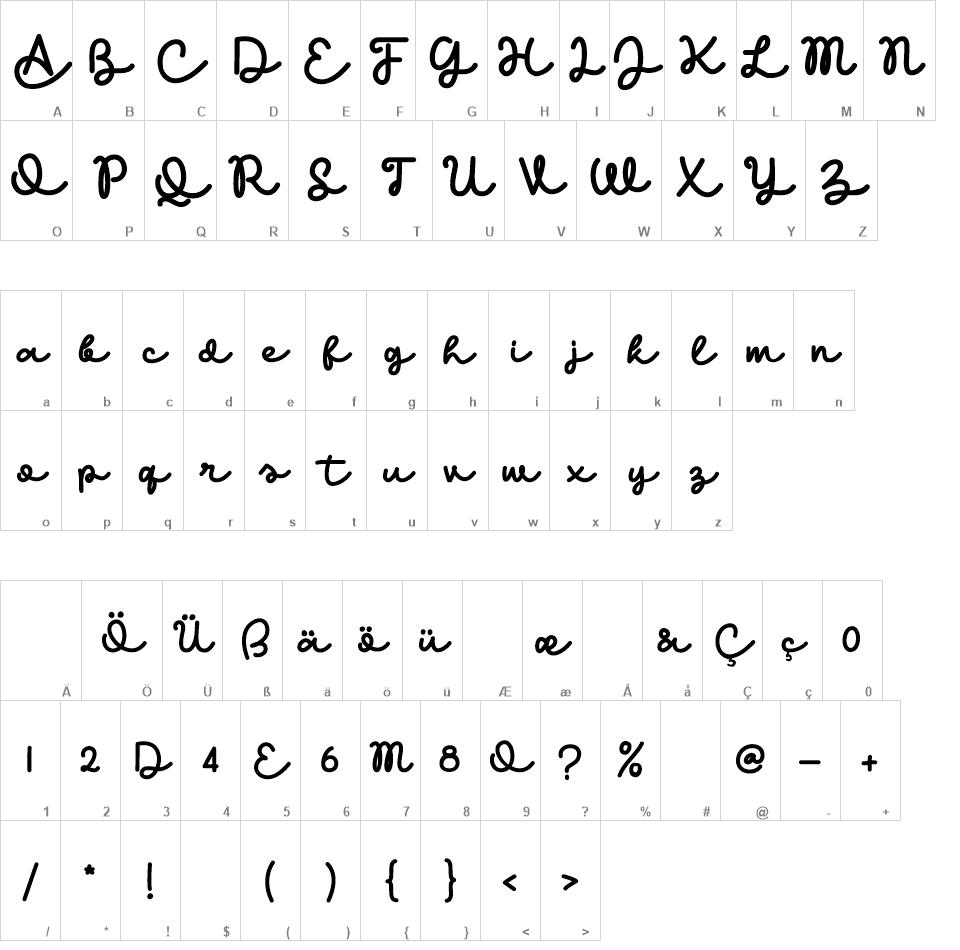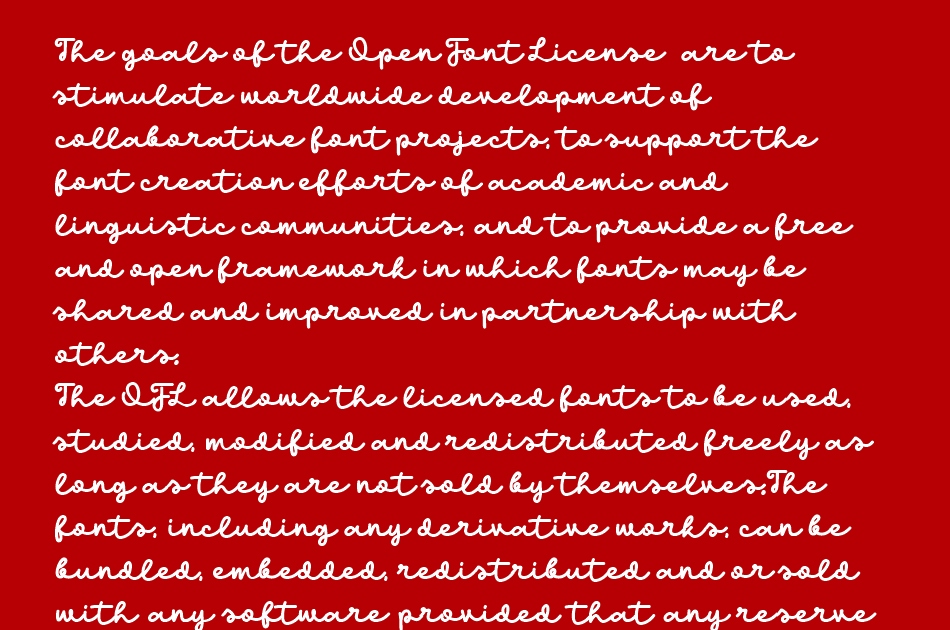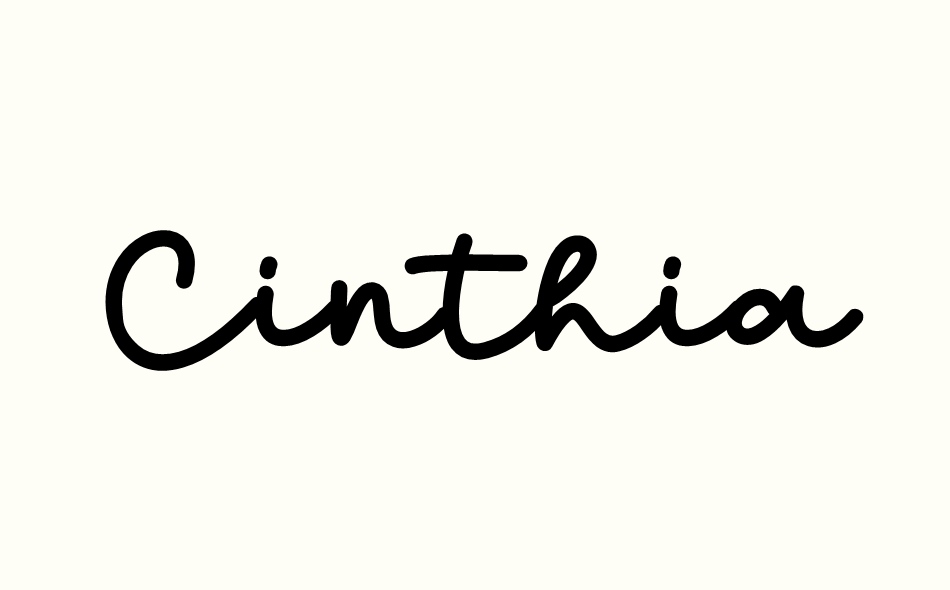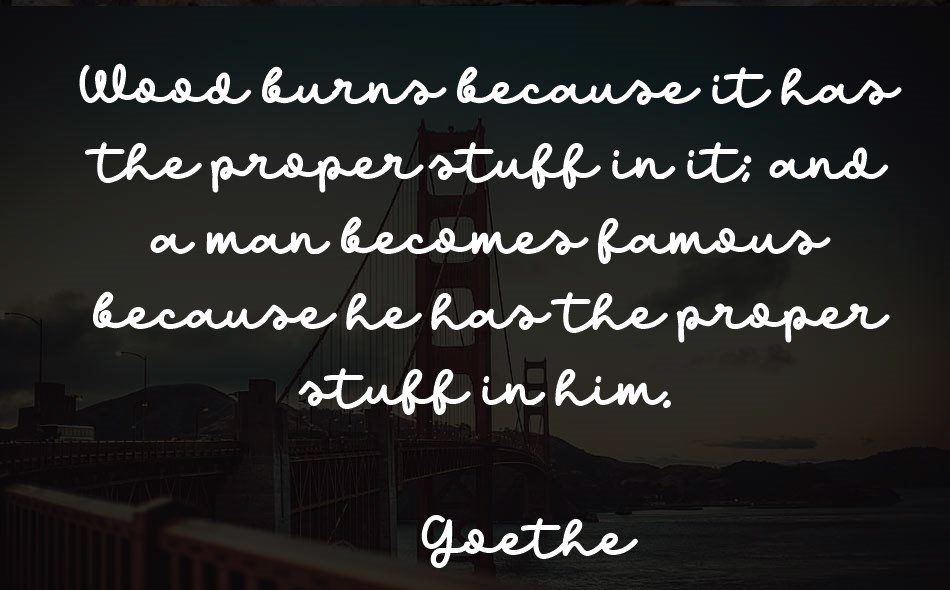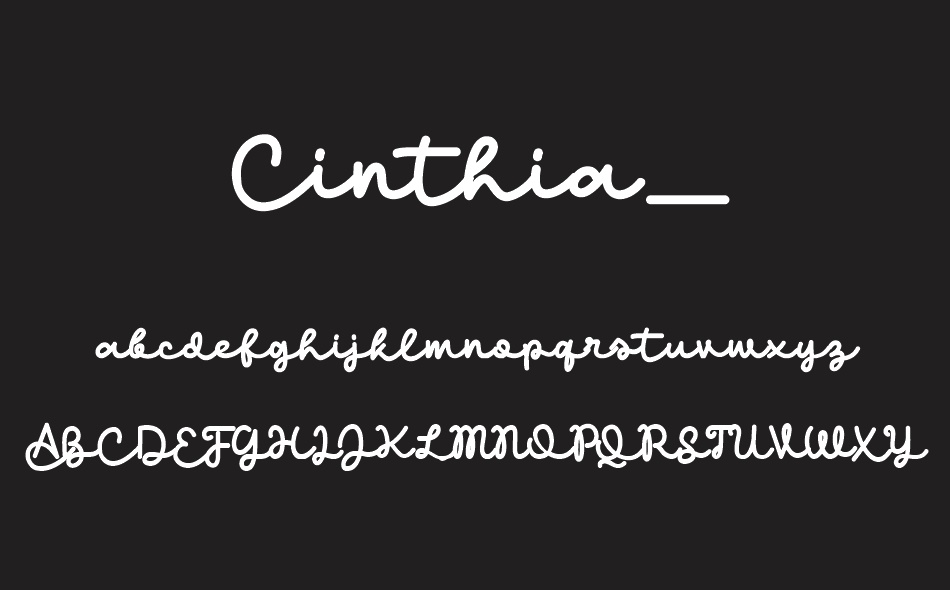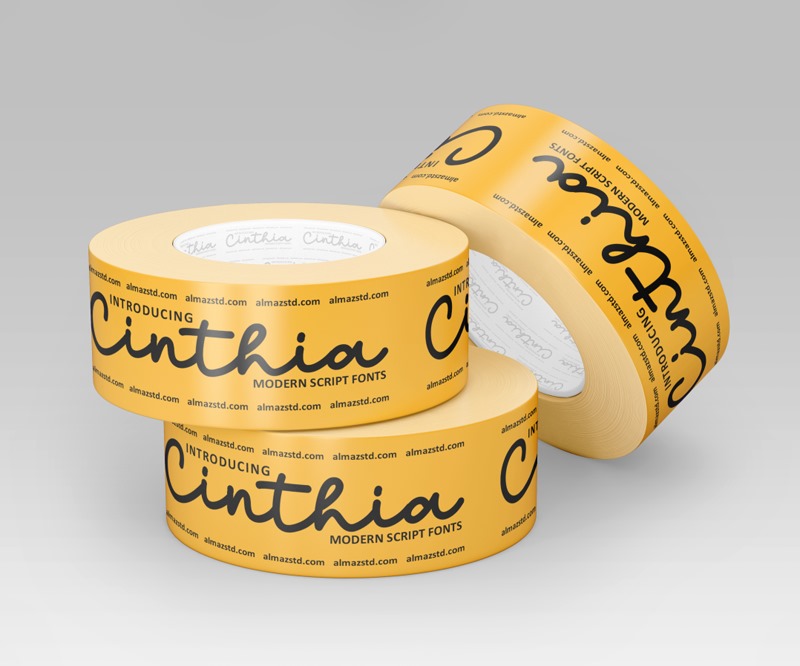
Cinthia font
Cinthia font is a magnificent curved display font. Cinthia font is a minimalist script type fonts. Cinthia font is a sophistication with its lettering.